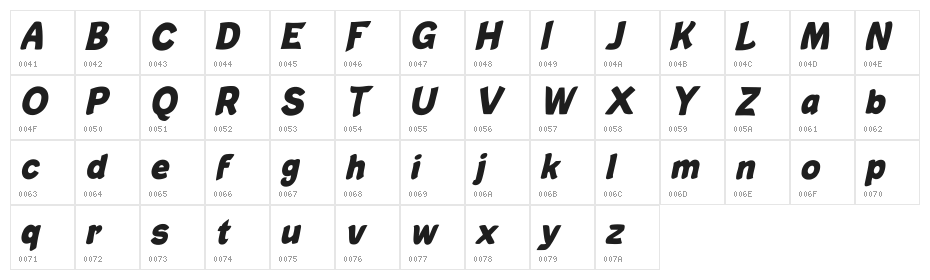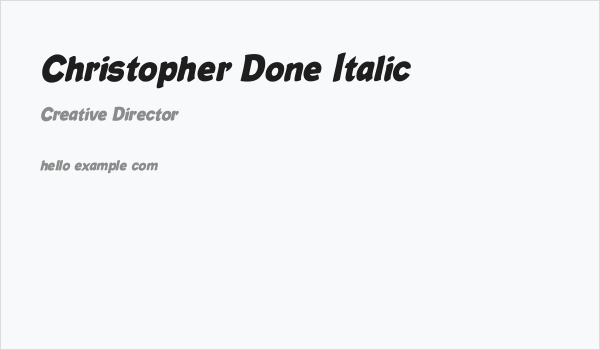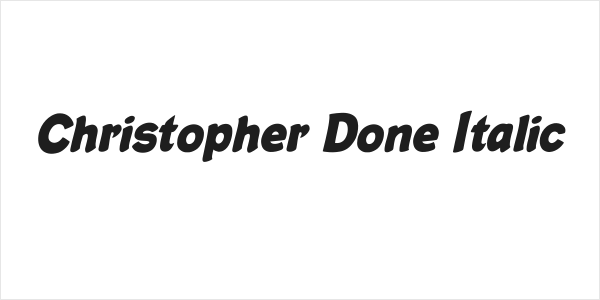
Christopher Done Italic Font
Christopher Done Italic Description
This font features a bold and dynamic italic style with a strong presence. The characters are slightly slanted, giving a sense of motion and energy. The strokes are thick and consistent, providing a robust appearance. The uppercase and lowercase letters maintain a cohesive look, with rounded edges and smooth curves. The numbers and special characters are designed to match the overall style, ensuring uniformity across all text elements. This font is ideal for making a statement, with its eye-catching and assertive design.
| Proposed Projects | Perfect for headlines, posters, branding, and any project requiring a bold, impactful typeface. |